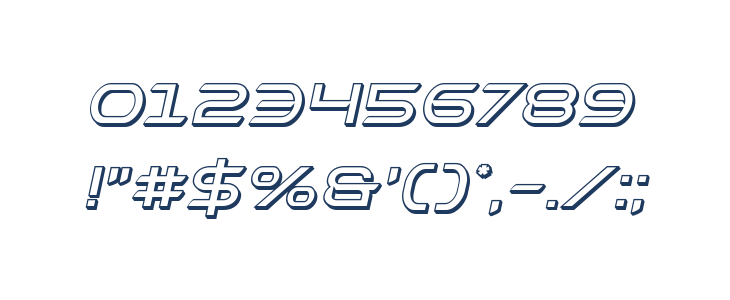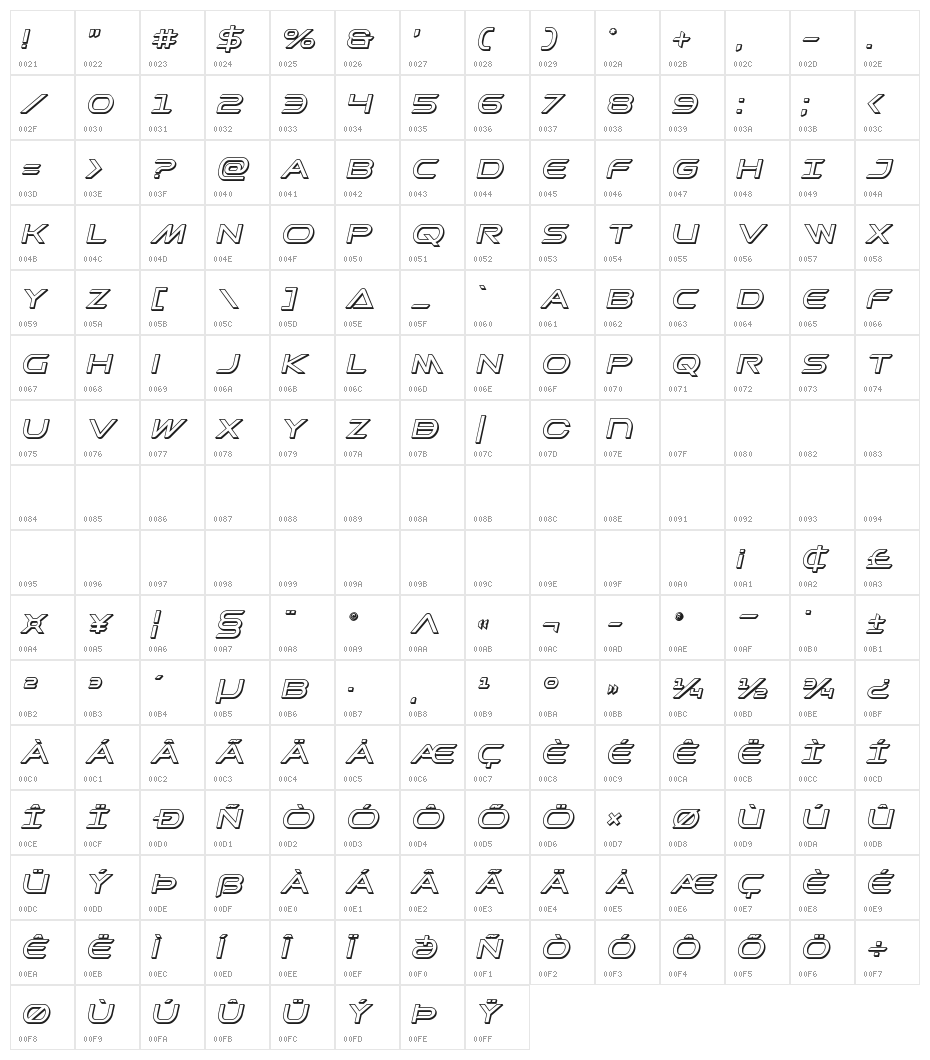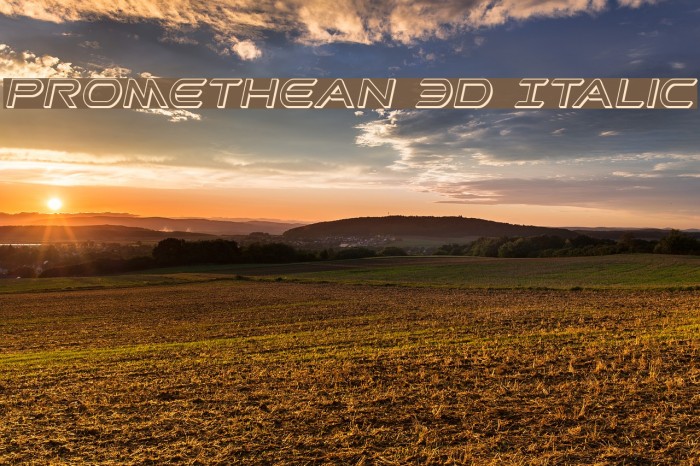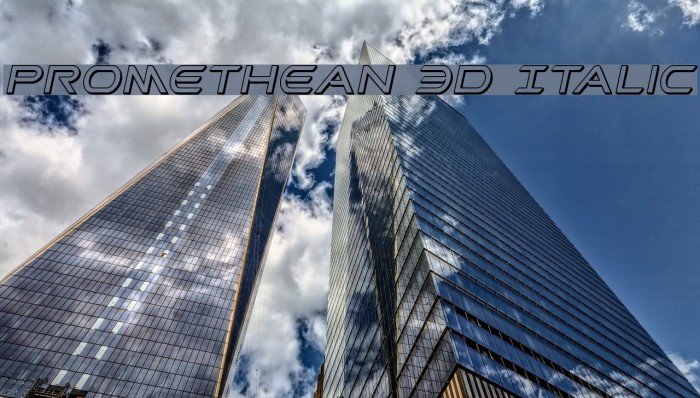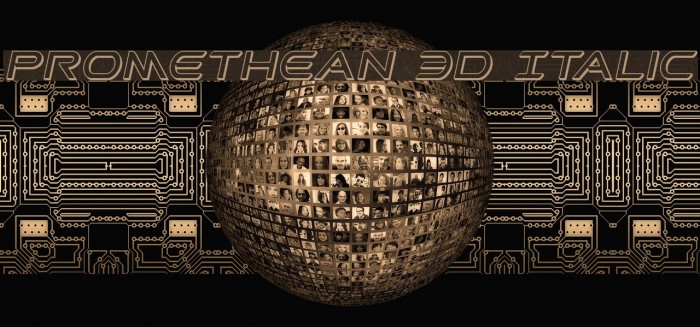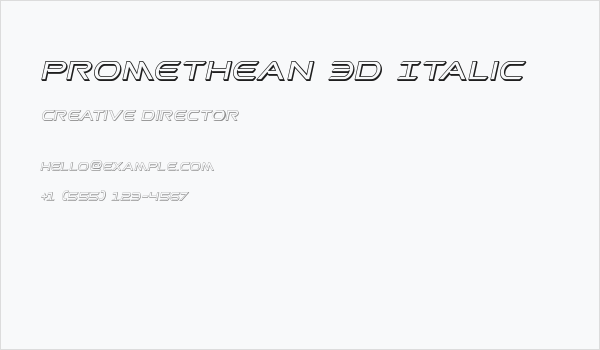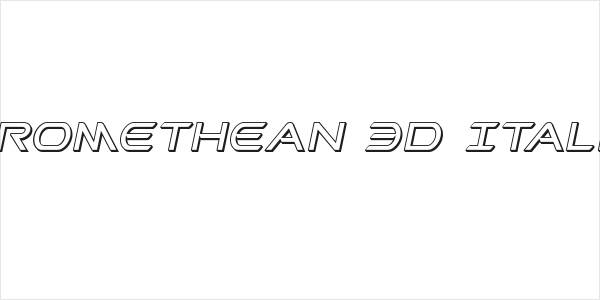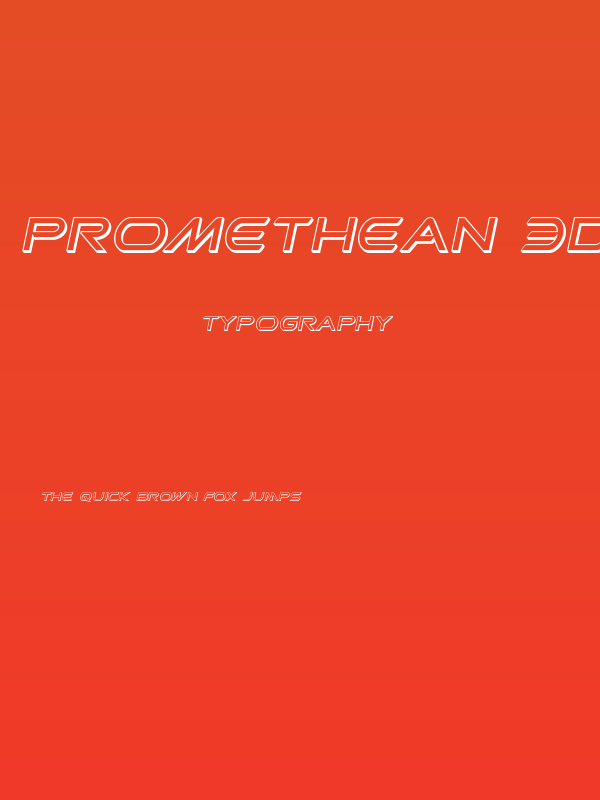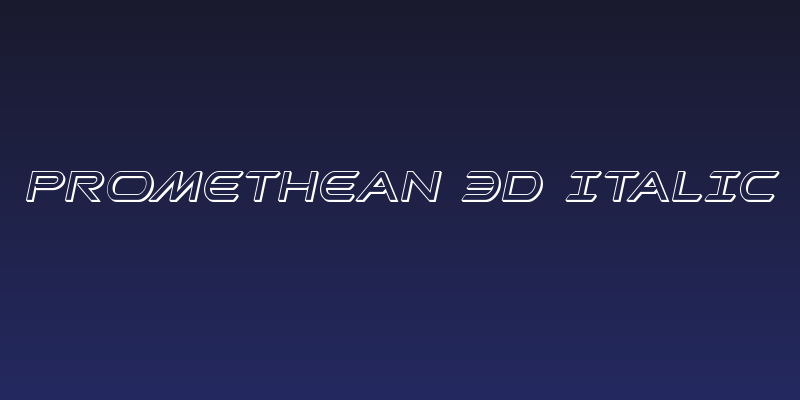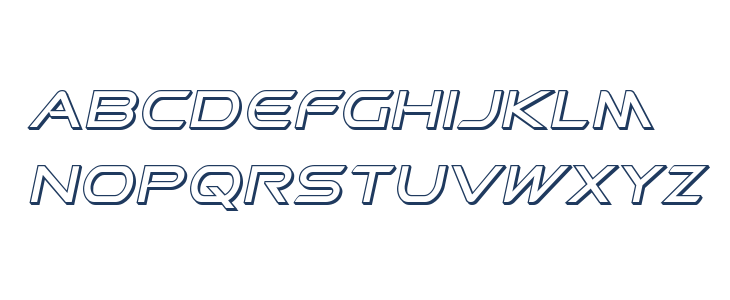
Promethean 3D Italic Font
Promethean 3D Italic Description
This font features a bold, futuristic design with a 3D effect that gives each character a sense of depth and dimension. The italicized style adds a dynamic and forward-moving feel, making it ideal for projects that require a modern and energetic look. The uppercase and lowercase letters maintain a consistent geometric structure, while the numbers and special characters complement the overall aesthetic. The font's clean lines and sharp angles contribute to its high-tech appearance, making it suitable for technology-related branding, sci-fi themes, and innovative product designs.